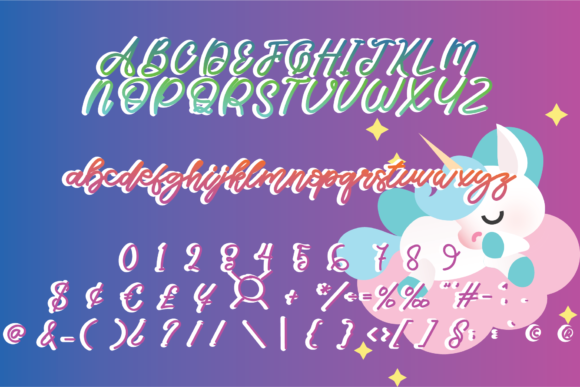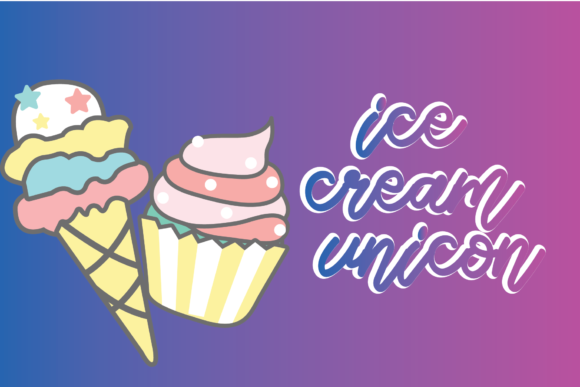
Where Creativity Meets Elegance: Introducing Beautifull Unicorn Font
Have you ever been browsing through a beautiful art book, feeling inspired by the intricate illustrations and the way the words dance across the page? That’s the kind of creative spark that can get your imagination running wild, and that’s exactly what happens when you stumble upon the perfect font. For designers and creatives, finding the right font can make all the difference in bringing a project to life.
Enter the enchanting Beautifull Unicorn Font, a flowing handwritten font that exudes elegance and sophistication. With its distinct and timeless style, it’s the perfect choice for adding a touch of magic to your designs. Whether you’re working on a wedding invitation, a children’s book, or a social media campaign, Beautifull Unicorn Font is sure to leave a lasting impression.
Key Features of Beautifull Unicorn Font
- Font Style: A whimsical, hand-drawn font with a touch of magic, perfect for adding a unique touch to designs.
- Unique Characteristics: Includes a range of special characters, such as unicorns, rainbows, and clouds, to add a touch of fantasy to designs.
Designer Review: Beautifull Unicorn Font
I recently had the chance to work with the “Beautifull Unicorn Font” and I must say it’s an interesting choice. Here are my thoughts:
- The font’s whimsical nature makes it perfect for fantasy or children’s book projects.
- The unique letterforms are visually appealing and can add a touch of magic to any design.
- The font is highly customizable, allowing designers to adjust the color, size, and spacing to suit their needs.
- The font may be too ornate for some projects, making it difficult to read at smaller sizes.
- The letterforms can be quite complex, which may lead to kerning issues if not properly adjusted.
- The font is not optimized for digital use, which can result in pixelation or distortion when scaled up or down.
Overall, I think the “Beautifull Unicorn Font” is a great choice for projects that require a touch of fantasy or whimsy. However, it may not be the best choice for projects that require clear, legible text. With some careful planning and customization, this font can be a real showstopper.
Beautifull Unicorn Font is perfect for adding a touch of magic to your designs. Use it for:
- Children’s party invitations
- Magical advertising campaigns
- Whimsical social media posts
Remember to use the font in moderation to avoid overwhelming your design.